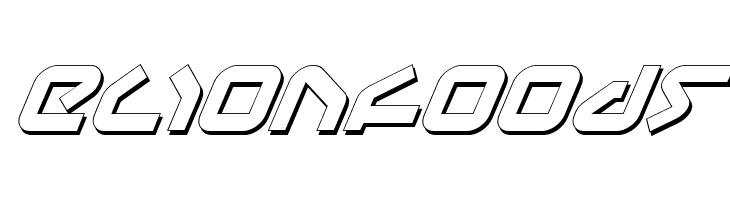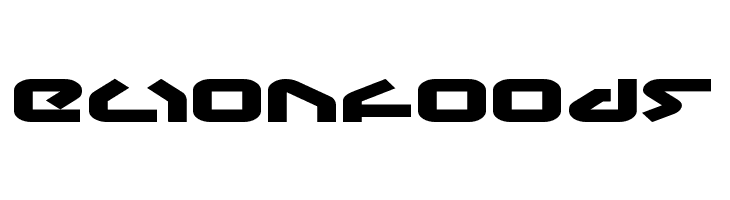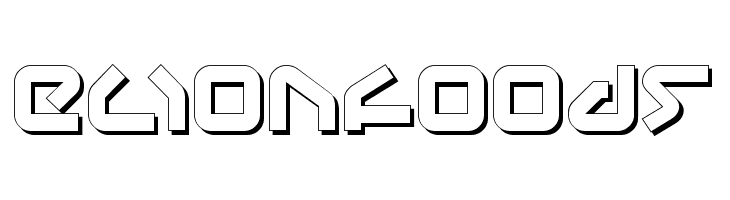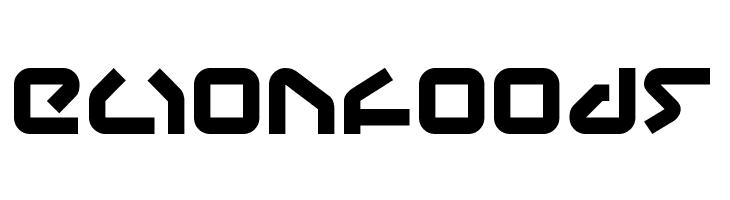
A modern, geometric sans-serif font with uniform strokes and strong visual impact.
A geometric, maze-like font with bold outlines and a futuristic style.
A bold, italicized font with a shadow effect and geometric design.
A bold, expanded, futuristic font with geometric design.
A bold, geometric font with a shadow effect for a 3D appearance.
A bold, geometric font with a futuristic and angular design.
A bold, geometric font with angular shapes and a futuristic style.